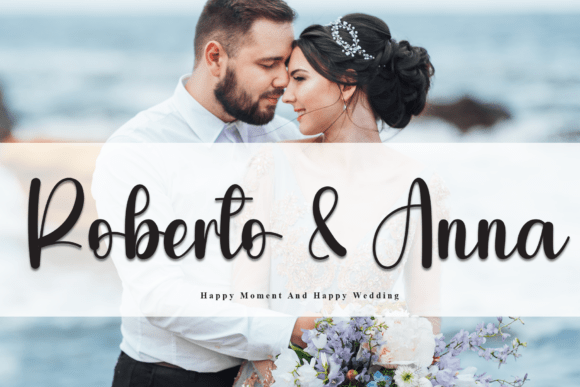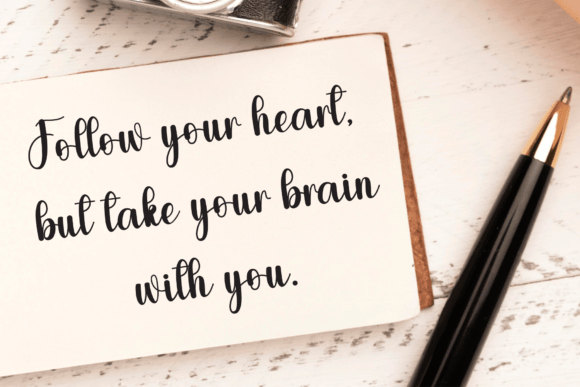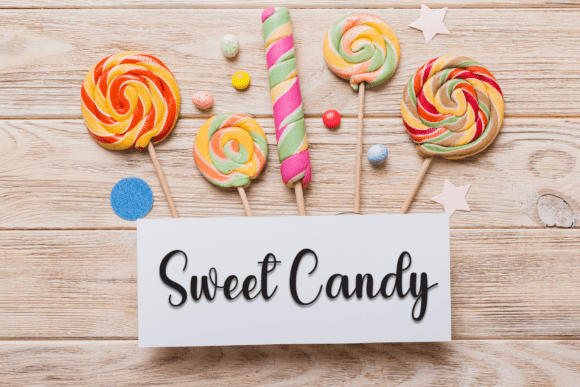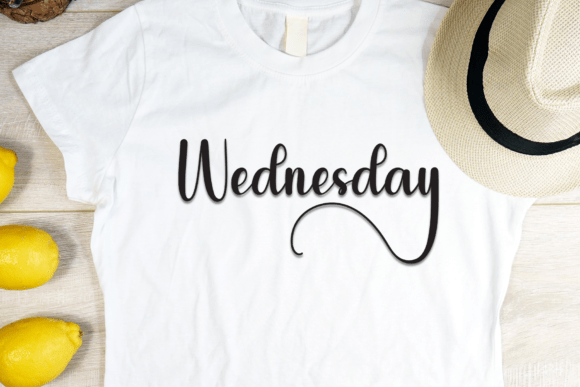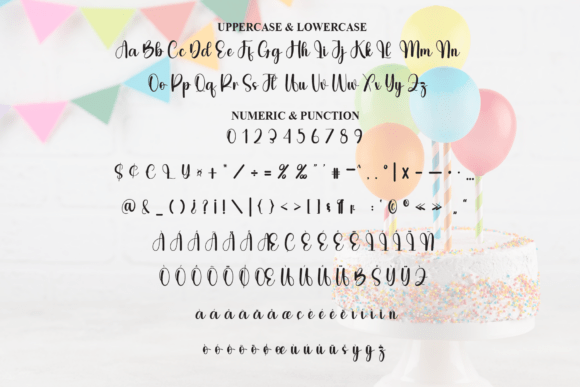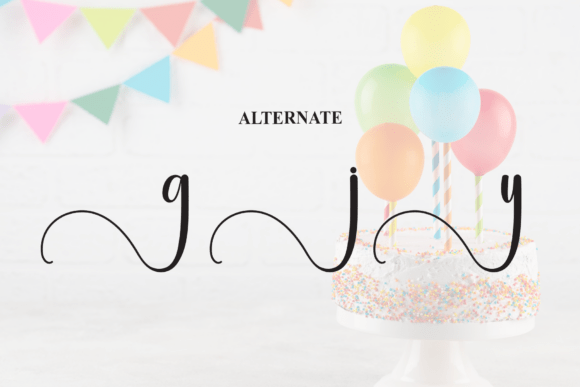
Introducing Birthday Font: The Ultimate Celebration Companion
Are you tired of using the same old fonts for your birthday cards, party invitations, and celebratory banners? Look no further! Birthday Font is here to add a touch of joy and elegance to your designs. This lively and elegant handwritten script font is specifically crafted to capture the festive and celebratory vibe of birthdays and special occasions.
The Perfect Font for Joyful Designs
Birthday Font boasts joyful curves and swirly terminals that make every design feel personal and joyful. Its dynamic flow ensures that your creations stand out from the crowd, making it perfect for a wide range of applications, including:
- Birthday cards: Make your loved ones feel special with beautifully designed birthday cards that feature the elegant and playful Birthday Font.
- Party invitations: Set the tone for an unforgettable celebration with eye-catching party invitations that showcase the font’s lively and festive spirit.
- Banners: Create stunning banners that grab attention and make a statement with Birthday Font’s unique and celebratory feel.
- Cheerful merchandise: Add a touch of joy to your merchandise, such as t-shirts, mugs, and party hats, with this delightful font.
What Makes Birthday Font Special?
So, what sets Birthday Font apart from other fonts? Here are a few key features that make it a must-have for designers and crafters:
- Lively and elegant: Birthday Font strikes the perfect balance between playfulness and sophistication, making it suitable for a wide range of designs.
- Handwritten script: The font’s handwritten script style adds a personal touch to your designs, making them feel more intimate and special.
- Dynamic flow: Birthday Font’s dynamic flow ensures that every design feels unique and engaging, making it perfect for creating one-of-a-kind celebrations.
- Easy to read: Despite its playful nature, Birthday Font remains easy to read, making it perfect for use in a variety of contexts, from formal invitations to casual party banners.
Tips for Using Birthday Font
To get the most out of Birthday Font, here are a few tips to keep in mind:
- Experiment with colors: Birthday Font looks stunning in a variety of colors, so don’t be afraid to experiment and find the perfect hue to match your celebration’s theme.
- Mix and match: Combine Birthday Font with other fonts to create a unique and eye-catching design that showcases your creativity.
- Pay attention to spacing: To ensure that your design looks its best, pay attention to spacing and adjust it accordingly to create a clean and visually appealing layout.